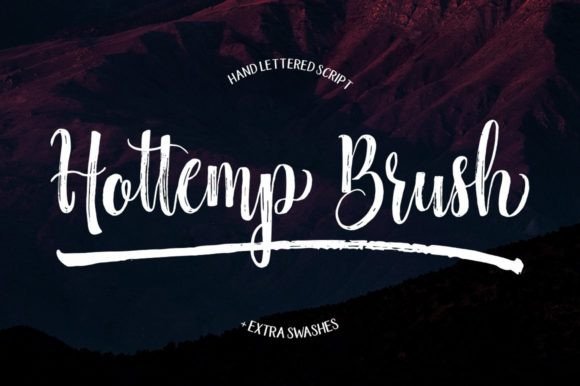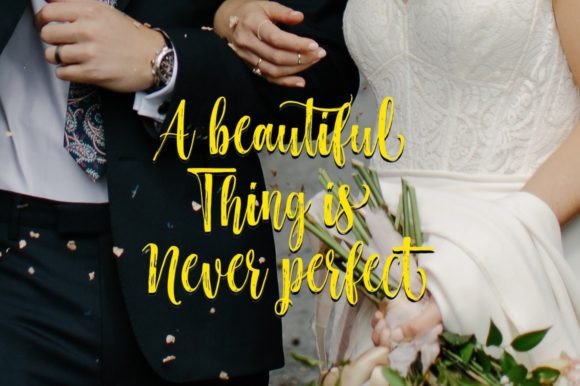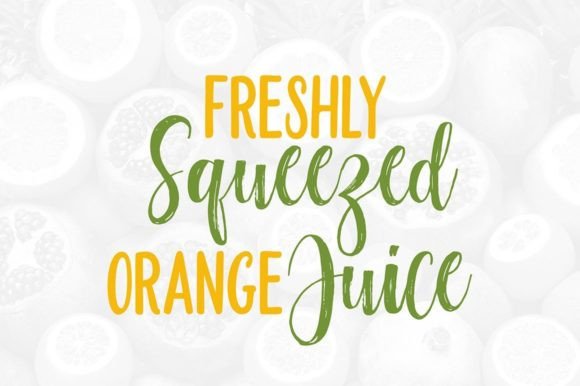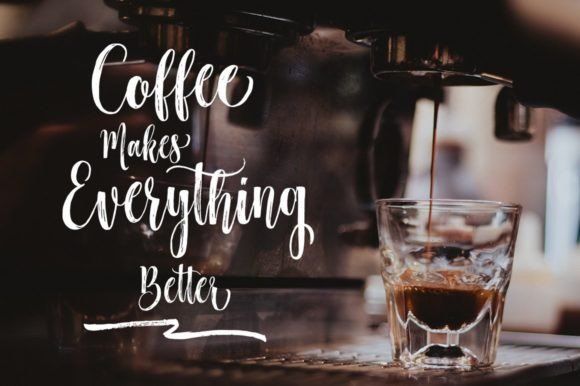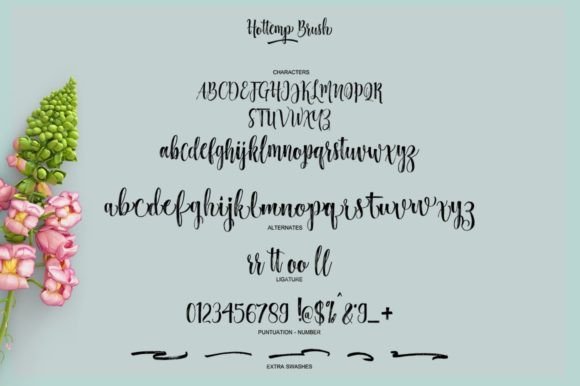
Hottemp Duo Font
About Hottemp Duo Font
“Hottemp” is more than just a font; it’s a cool and modern handwritten font duo that combines a brush script and a display font. This duo offers versatility for various design applications, making it suitable for crafts, digital design, presentations, greeting cards, and more. “Hottemp” has the potential to become your favorite go-to font, no matter the occasion.
The cool and modern nature of “Hottemp” is immediately apparent in its script and display fonts. The brush script exudes a dynamic and contemporary vibe, while the display font adds a touch of style and uniqueness. This combination makes it an ideal choice for projects that demand a mix of coolness and modernity.
The versatility of “Hottemp” is evident in its suitability for various occasions and design contexts. Whether used in digital graphics, presentations, or crafting personalized greeting cards, this font duo becomes a reliable choice that adapts to different creative needs.
With its cool and modern handwritten style, “Hottemp” becomes a font that adds a unique flair to your designs. The brush script, with its dynamic strokes, can bring energy to your projects, while the display font contributes to a sense of style and sophistication.
In summary, “Hottemp” is not just a font duo; it’s a design toolkit that brings a cool and modern touch to your creative projects. Let it be the choice for adding a dynamic and stylish flair to your designs, making them stand out with versatility and uniqueness. With “Hottemp,” every occasion becomes an opportunity to showcase the cool and modern side of your creativity.